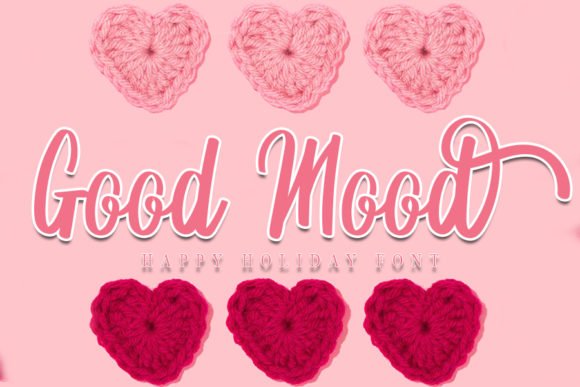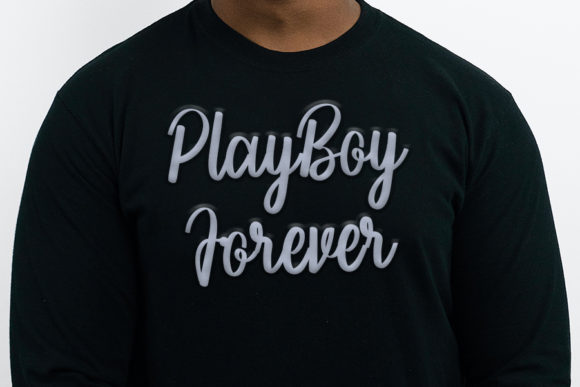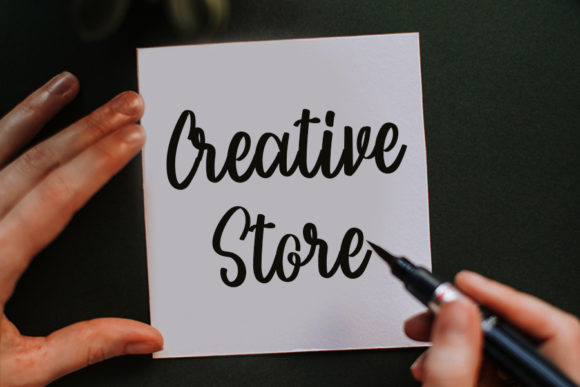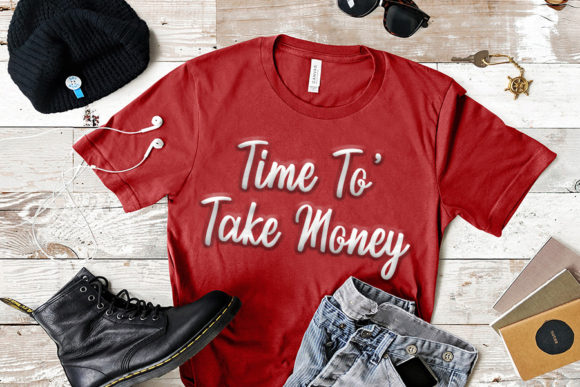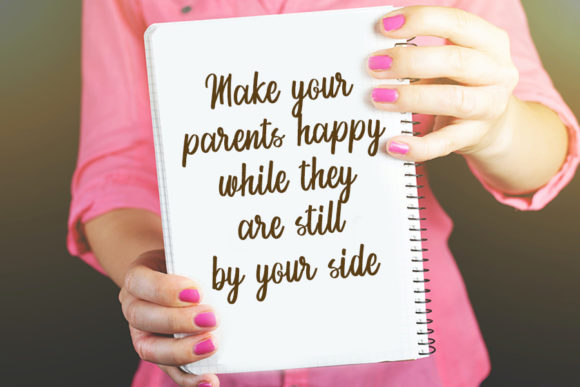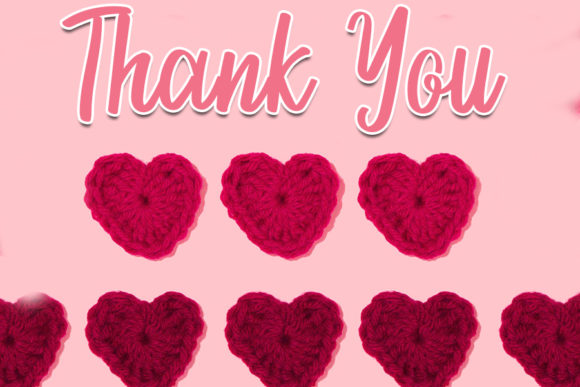
When Creativity Hits, and Your Design Needs a Lift
Do you ever find yourself staring at your design project, searching for that perfect touch to make it pop? The blank page can be intimidating, but sometimes all it takes is a single font to bring your vision to life. For many designers, that perfect font is the Good Mood Font – a friendly and approachable script font that’s sure to put a smile on your audience’s face.
Whether you’re crafting a social media post, designing a website, or creating flyers and invitations, the Good Mood Font is the perfect choice. Its natural and simple style makes it an excellent addition to any design, giving it a customized and welcoming touch. And for designers, it’s a valuable asset in their toolkit – a go-to font that’s guaranteed to elevate their designs and leave a lasting impression.
Key Features of Good Mood Font
- Unique Characteristics: Friendly, approachable, and easy-to-read design; perfect for creating a welcoming atmosphere in digital products, such as websites, mobile apps, and print materials
Good Mood Font Review
Overall, I’d say Good Mood Font is a solid choice for designers looking for a fun and playful typography. Here are some of the things that work well:
- ✨ The font’s versatility is one of its strongest points. It’s perfect for branding, advertising, and even editorial content.
- ✨ The font’s curves and rounded edges give it a friendly and approachable feel, making it perfect for kid-friendly content or products.
- ✨ The font’s weight and line width variation make it easy to use in different contexts and to create visual interest.
However, I do have a few concerns:
- ⚠️ The font may be too playful for more formal or professional content. Its lighthearted feel may not be suitable for every project.
- ⚠️ The font’s rounded edges can make it difficult to read at small sizes or in certain contexts.
Overall, I think Good Mood Font is a great choice for designers who want to add a touch of fun and personality to their projects. While it may not be suitable for every project, it’s definitely worth considering for the right type of content.
Tips for Getting the Most Out of Good Mood Font
Use Good Mood Font for titles and headings to add a touch of whimsy and personality to your designs.
Experiment with different font sizes and colors to create a visually appealing contrast.
Combine Good Mood Font with other fonts to create a unique and eye-catching design.
Use Good Mood Font for:
Blog post titles and headings
Social media graphics and posts
Printable art and quotes
Alternatives to Good Mood Font
Playfair Display is a luxurious and elegant script font, perfect for titles, headings, and special occasions. It has a classic and sophisticated feel, ideal for high-end branding, luxury products, and formal events. Compared to Good Mood Font, Playfair Display has a more refined and polished look, with intricate details and flourishes.
Lato is a modern sans-serif font that is highly legible and versatile. It’s suitable for body text, titles, and headings, making it a great choice for digital and print materials. Unlike Good Mood Font, Lato has a more minimalist and clean design, with a focus on simplicity and clarity.
Great Vibes is a fun and playful script font, perfect for creative projects, social media, and advertising. It has a carefree and energetic feel, ideal for youth-oriented brands, events, and products. Compared to Good Mood Font, Great Vibes has a more casual and relaxed vibe, with a focus on friendliness and approachability.
Montserrat is a geometric sans-serif font, inspired by the urban landscape of Montserrat, Argentina. It’s highly legible and versatile, suitable for body text, titles, and headings. Unlike Good Mood Font, Montserrat has a more modern and edgy design, with a focus on functionality and efficiency.